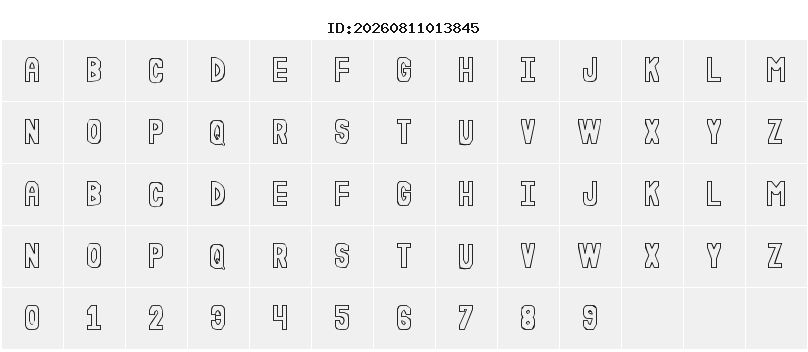
• Font Name: Rudasteria St
• Full Font Name: Rudasteria St
• Character Count: 242
Rudasteria St.ttf is a modern, elegant sans-serif font designed for ultimate readability and visual harmony. Perfect for branding, headlines, web design, and print materials.